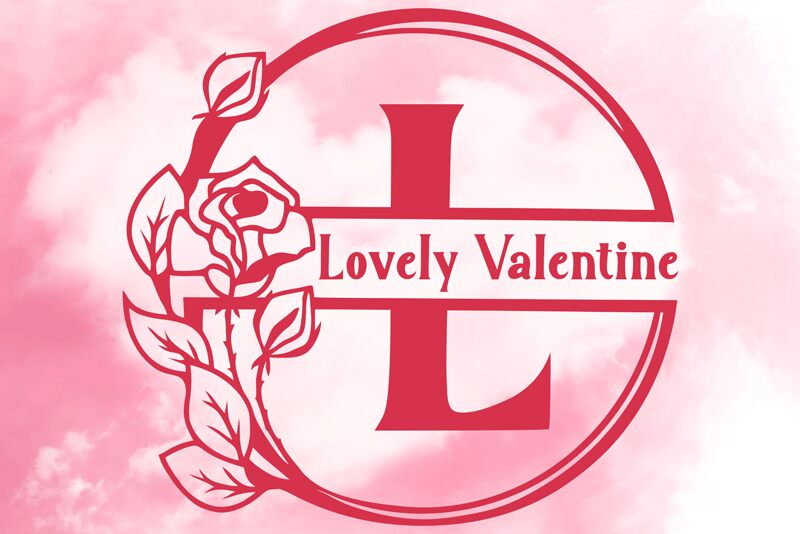
Lovely Valentine Monogram font family by Yoga Letter comes in 2 romantic fancy font styles. This font family is inspired by splendid Love monograms. Unlike real monograms that involve two or three initials, the alphabets included each have their unique design.
What makes this typeset both original and distinguished is an important consideration when designing personal gifts for people who are dear to you. Other proper use cases would be greeting cards, wedding invitations, decorative and letterhead designs, and even branding projects featuring logos.